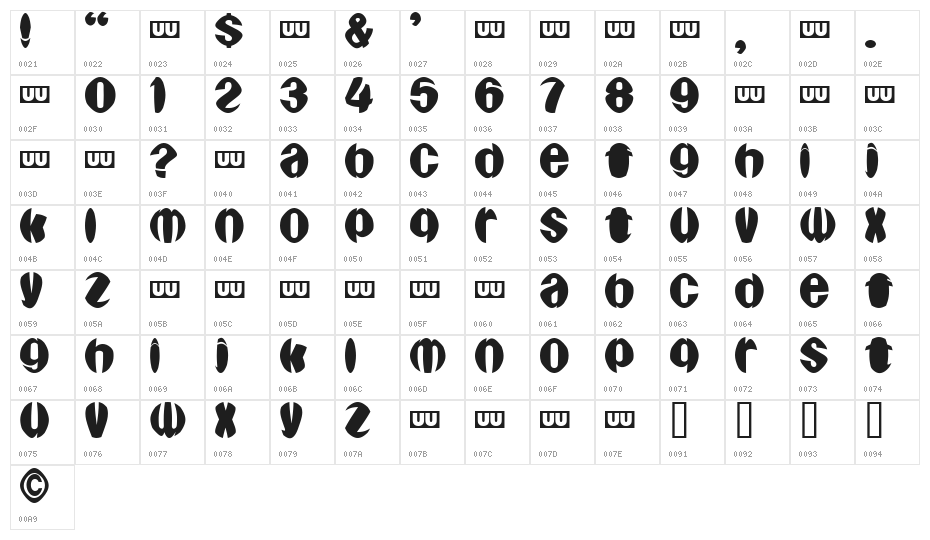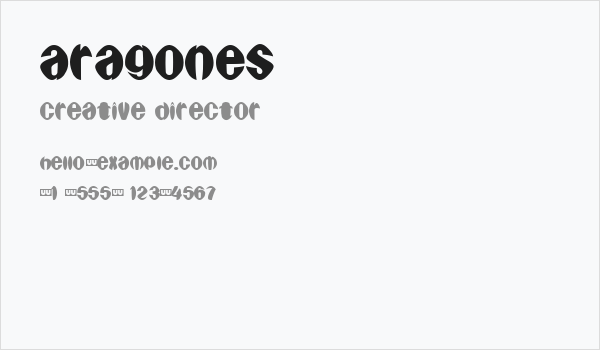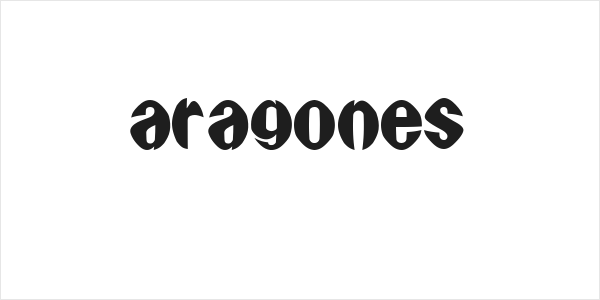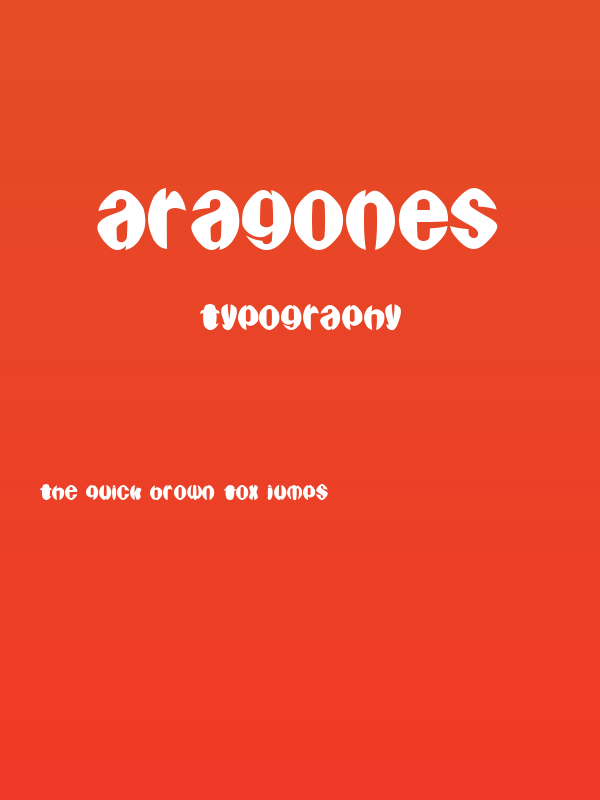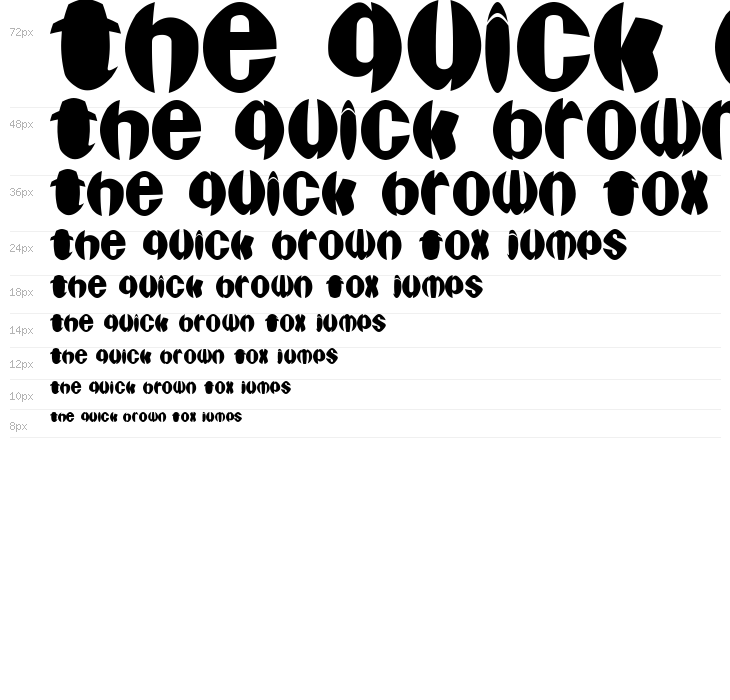
Aragones Font
✎ Stencil
Aragones Description
This font features a bold and striking design with a unique, rounded shape that gives it a playful and modern appearance. The characters are heavily stylized, with thick strokes and a consistent weight throughout. The uppercase and lowercase letters maintain a uniformity that enhances readability while still offering a distinct visual flair. The numbers and special characters follow the same design principles, ensuring a cohesive look across all elements. This font's boldness and unique style make it ideal for eye-catching designs.
| Proposed Projects | Ideal for branding, posters, headlines, and any design project that requires a strong visual impact. |